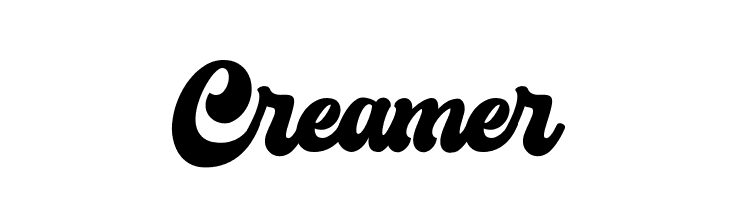
A bold, decorative font with intricate patterns and a playful, festive style.
A bold, decorative font with festive Mexican-inspired patterns.
A bold, brush-style script font with a playful and dynamic character.
Elegant handwritten script font.
A whimsical decorative font with characters encased in floral designs.
A playful font with characters inside sunflower designs, offering a whimsical and cheerful look.
Casual handwritten script with tall, narrow, and rounded characters.
A bold, expressive handwritten font with fluid, cursive strokes.
A bold, rounded font with a playful and informal style.
A lively, cursive handwritten font with smooth, flowing strokes.
A bold, playful font with rounded, hand-drawn characters.
A playful, flowing handwritten font with bold, cursive letterforms.
Casual handwritten script font.
A classic serif font with elegant, elongated letterforms and refined strokes.
An elegant script font with flowing, interconnected letters and intricate swashes.
An ornate, calligraphic font with sharp, angular strokes and intricate flourishes.
Light, elegant handwritten script with tall, flowing forms.
Decorative cartoon character illustrations used as font glyphs.
A bold, rounded sans-serif font with smooth curves and uniform strokes.
A bold, rounded typeface with a playful and approachable style.
A modern, geometric font with thin strokes and balanced spacing.
A clean, modern sans-serif font with light weight and excellent legibility.
A modern, rounded font with a clean and friendly appearance.
A modern, geometric sans-serif font with rounded edges and excellent readability.
A modern, rounded font with consistent stroke width and friendly appearance.
A modern, clean sans-serif font with uniform stroke width and balanced spacing.
A bold, playful font with a retro 70s vibe and rounded, bubbly characters.
A modern, elegant script font with flowing, connected characters.
A lively and elegant script font with fluid, cursive strokes.
A whimsical and playful font with curly, flowing letterforms and a hand-drawn feel.
A sophisticated, elegant handwritten font with fluid, cursive strokes.
A playful and elegant handwritten font with fluid, cursive letterforms.
A graceful, flowing script font with elegant, connected letters.
A playful, bold handwritten font with dynamic strokes and a casual style.